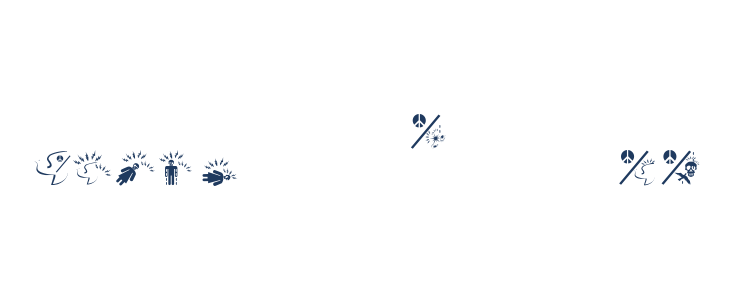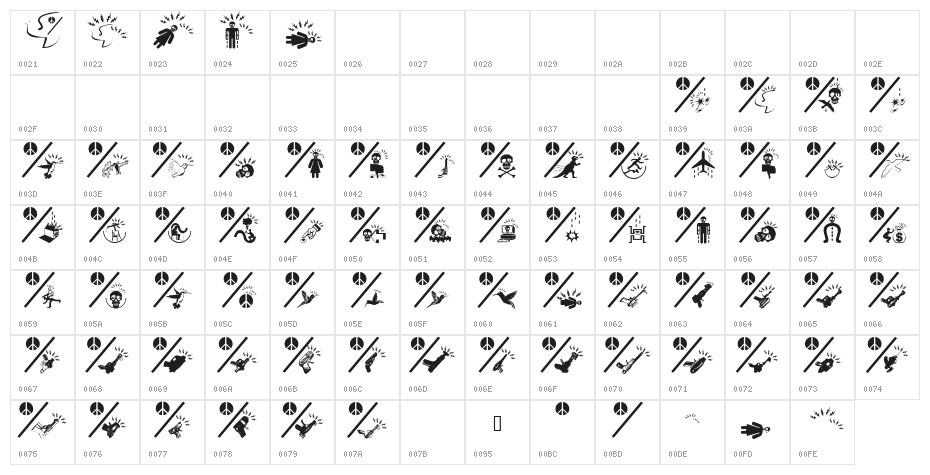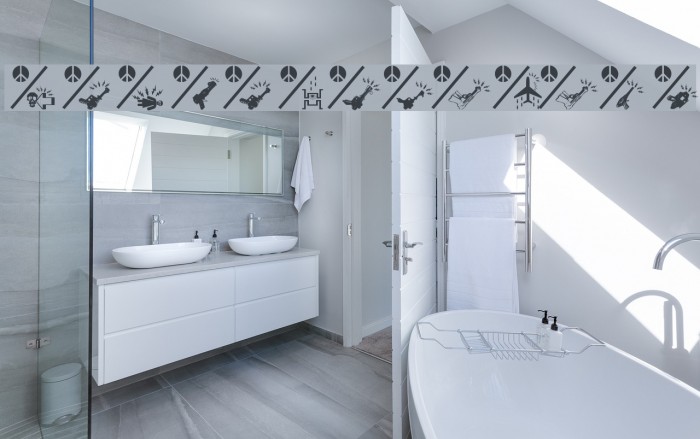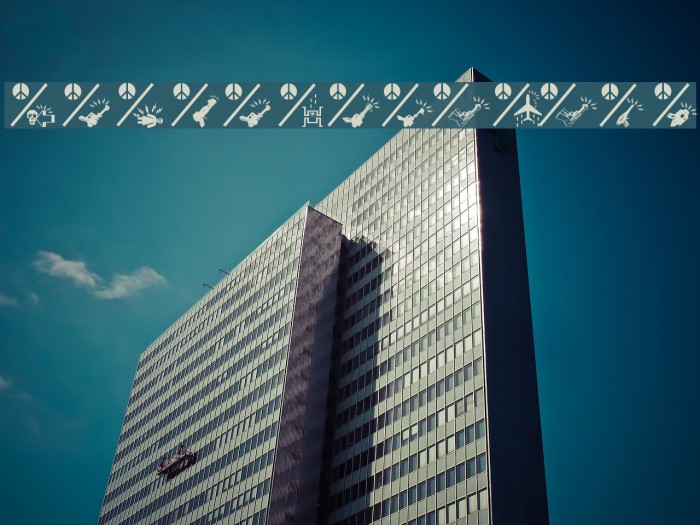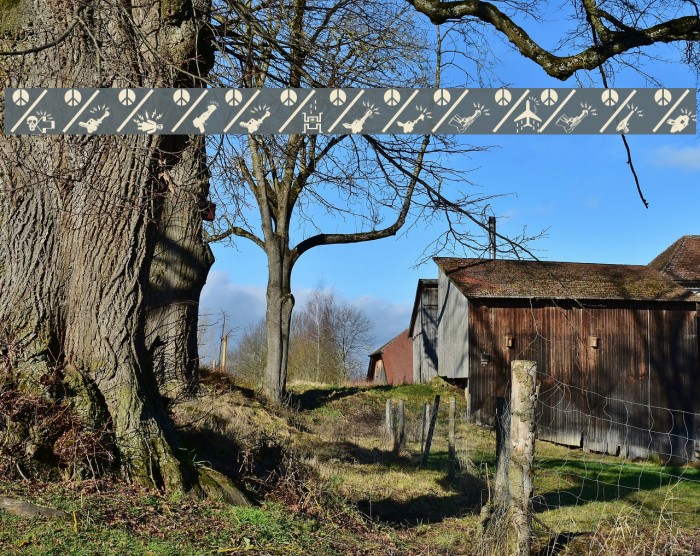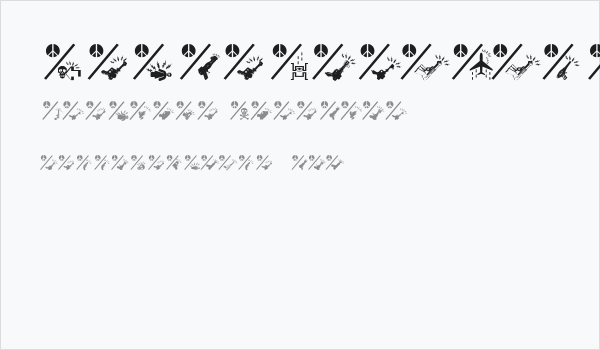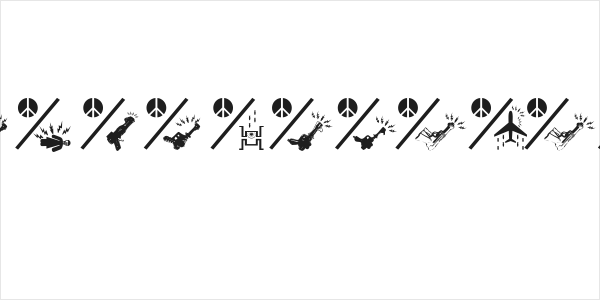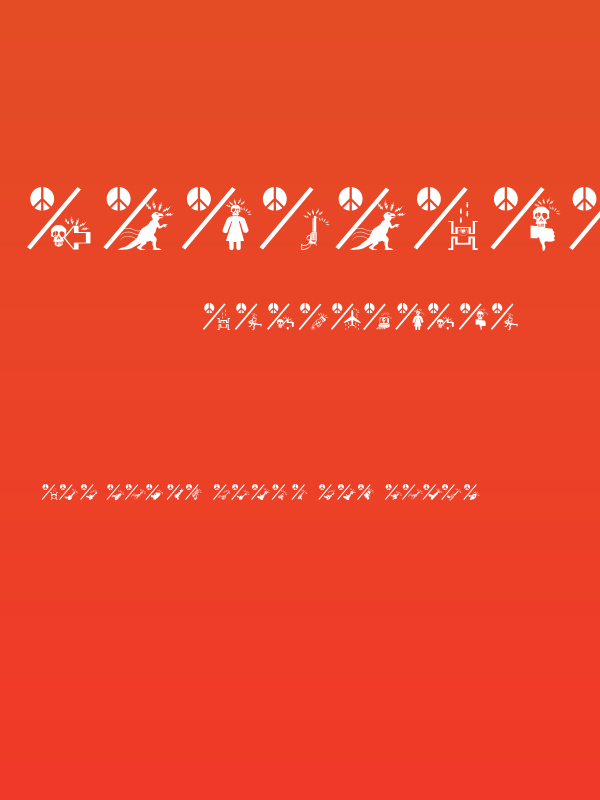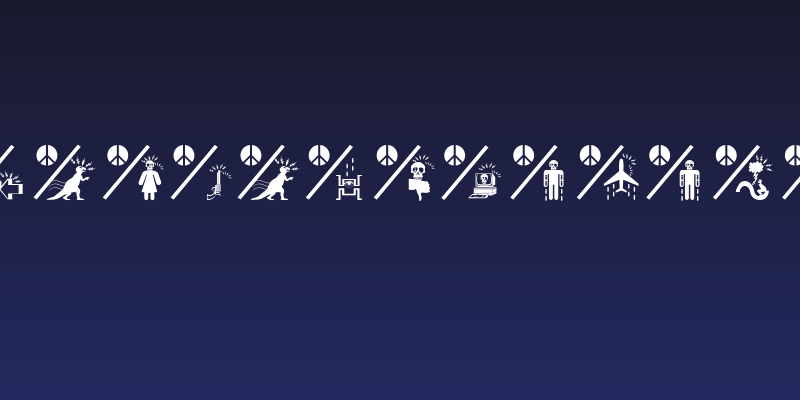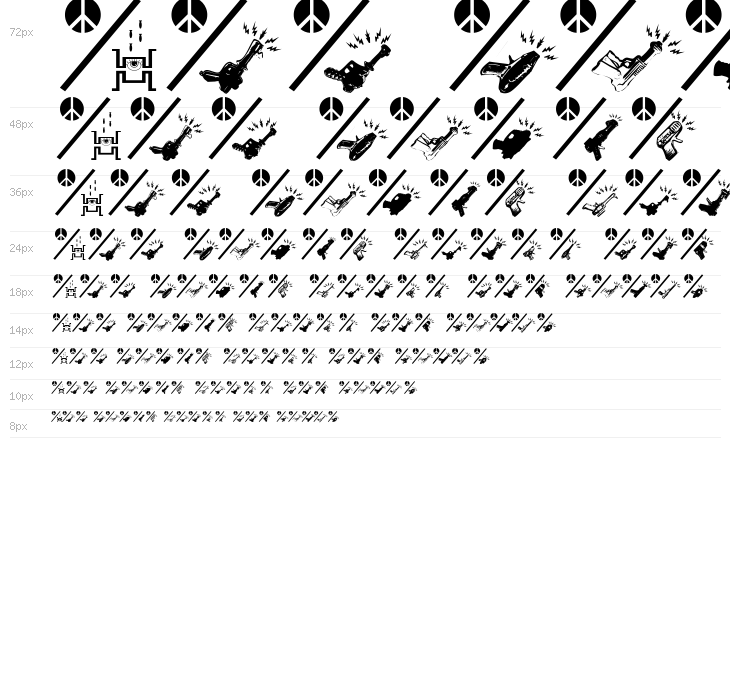
PeaceThruGuns Font
PeaceThruGuns Description
This is not a traditional font but rather a collection of symbols and icons that convey various themes and messages. Each character is represented by a unique graphic, often combining elements of peace and conflict, such as peace signs juxtaposed with imagery of explosions or weapons. The style is illustrative and bold, with a strong emphasis on visual storytelling. The icons are detailed and varied, offering a wide range of interpretations and uses. This set is more suited for creative projects that require symbolic representation rather than textual communication.
Overall StyleIllustrative, Symbolic
Use CaseLogos, Posters, Artistic Designs
Proposed ProjectsIdeal for graphic design projects, posters, and artwork that require symbolic representation of peace and conflict.